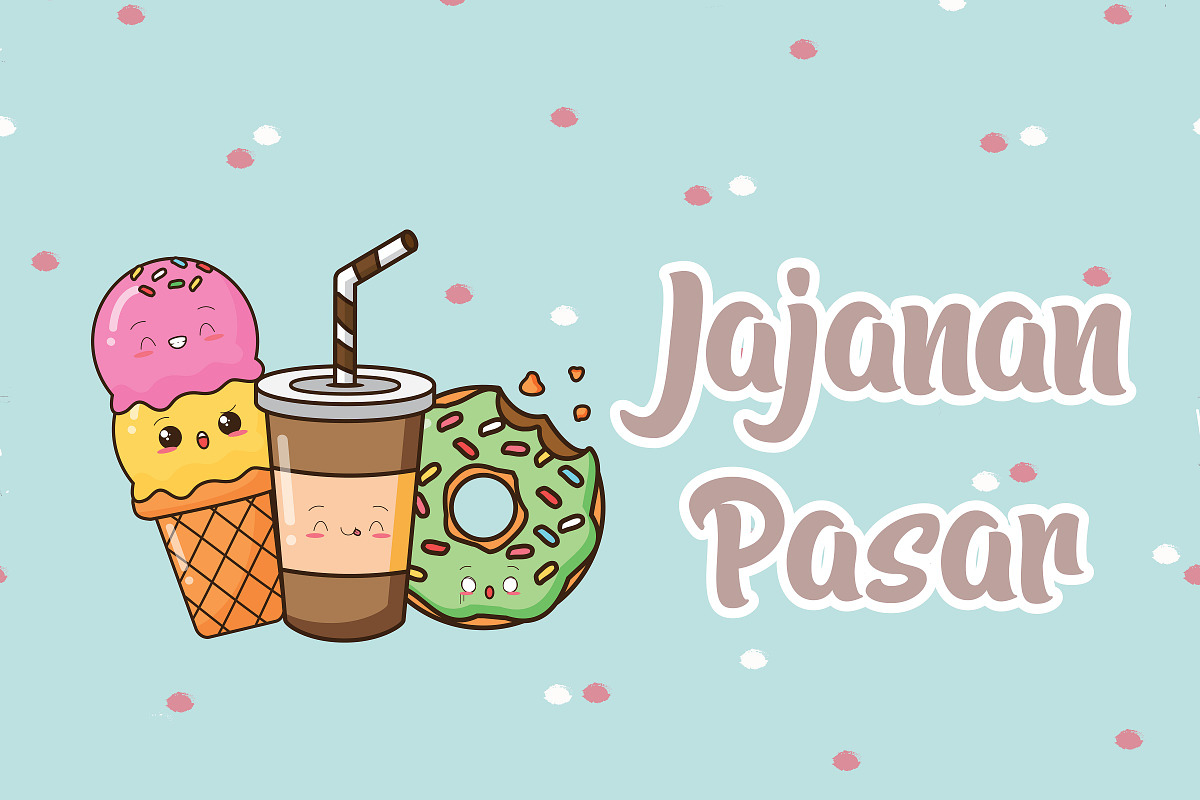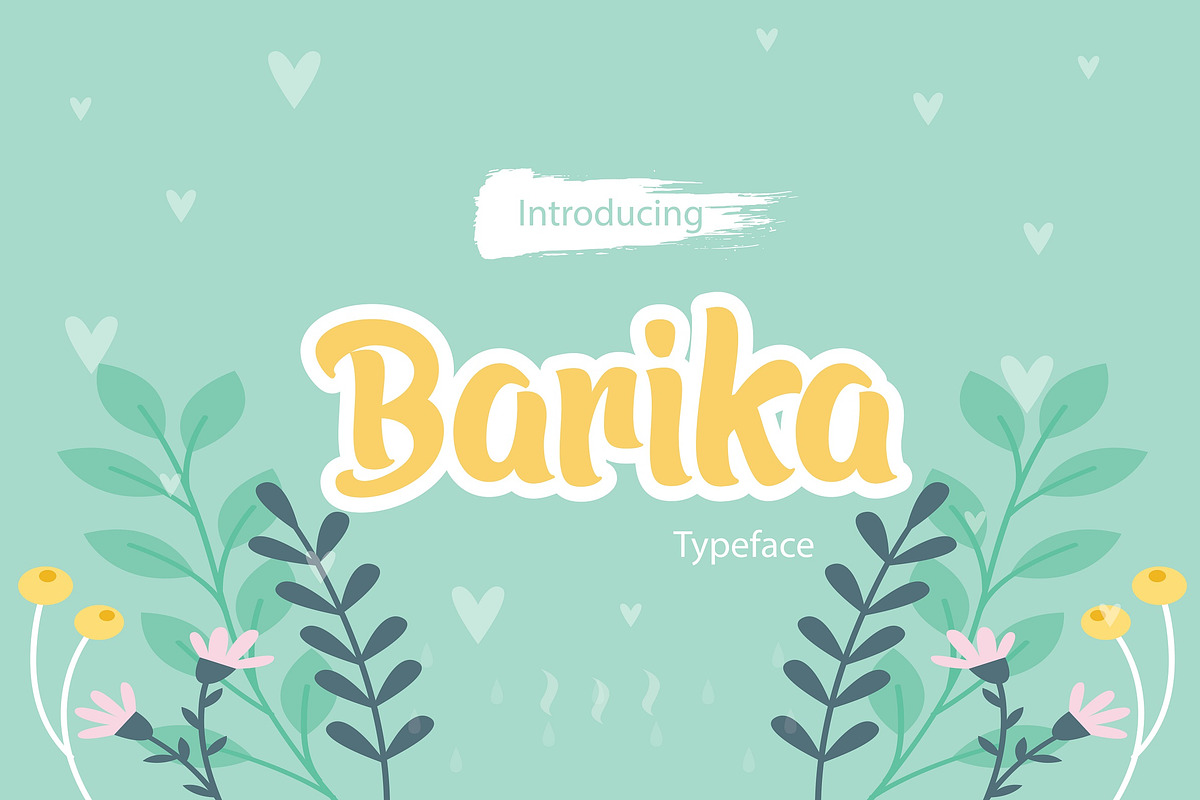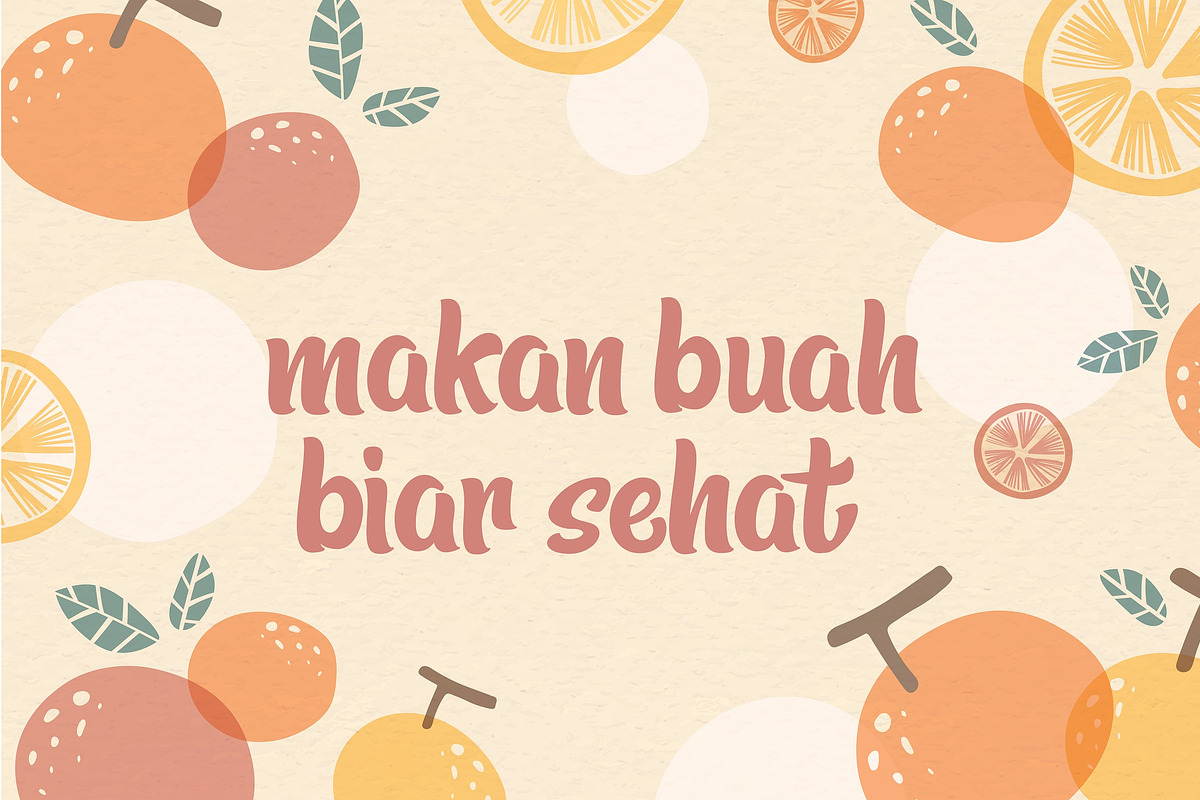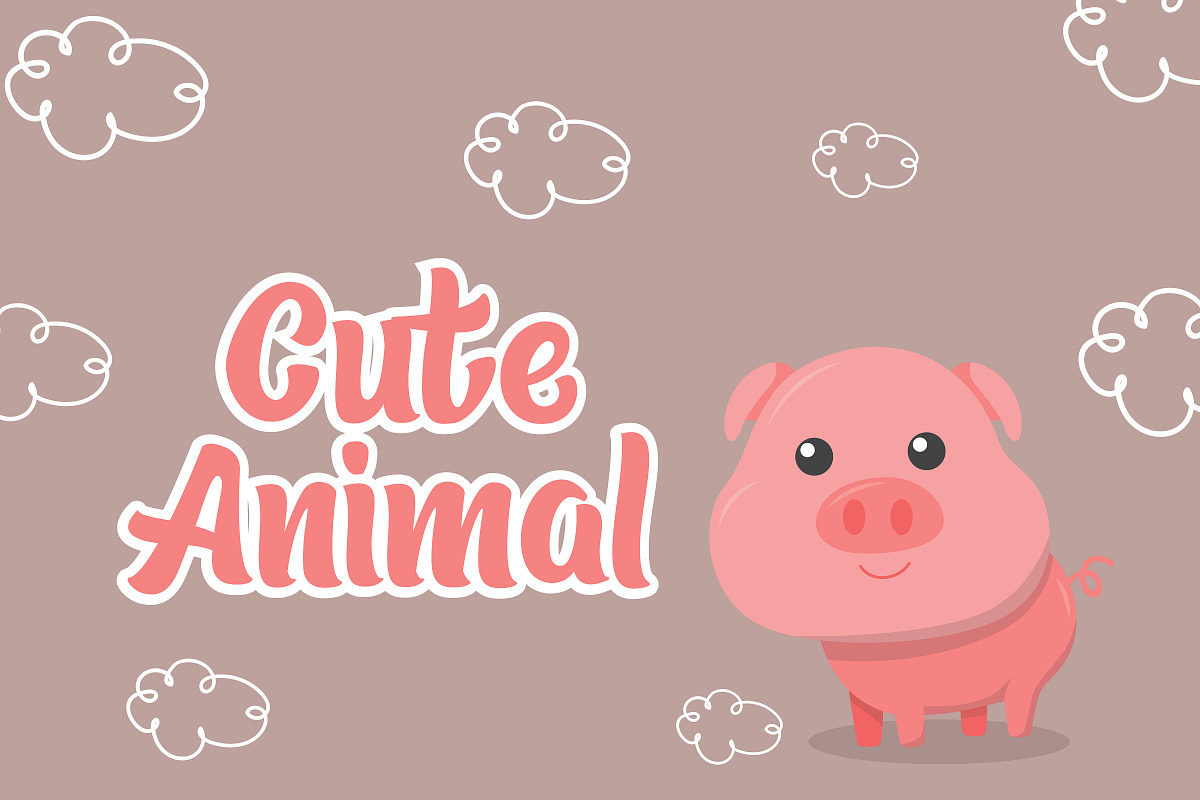
Barika Font
Hello friend This is Barika Font, cute and adorable fonts. Can be used to poster, t shirt design, branding you product, and etc. I hope you like it, thank you
Why Barika Font is worth a look
Barika Font by Authentic Studio fits naturally into Branding, posters, packaging, typography.